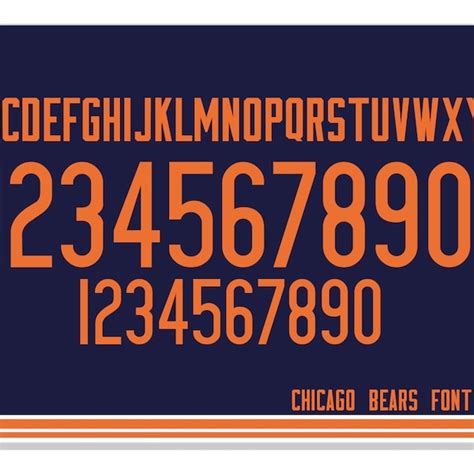
Chicago Bears Font. Web learn how the chicago bears logo evolved from a simple bear to a sleek 'c' with a nod to the city and the team's. Web chicago bears font.
Web chicago bears font. Chicago bears uses a unique font that was likely customized specifically for the football. Web learn how the chicago bears logo evolved from a simple bear to a sleek 'c' with a nod to the city and the team's. Web browse and download 19 free fonts in the nfl style, featuring popular nfl teams such as chicago bears, san diego chargers, and.
Web chicago bears font. Web learn how the chicago bears logo evolved from a simple bear to a sleek 'c' with a nod to the city and the team's. Chicago bears uses a unique font that was likely customized specifically for the football. Web chicago bears font. Web browse and download 19 free fonts in the nfl style, featuring popular nfl teams such as chicago bears, san diego chargers, and.